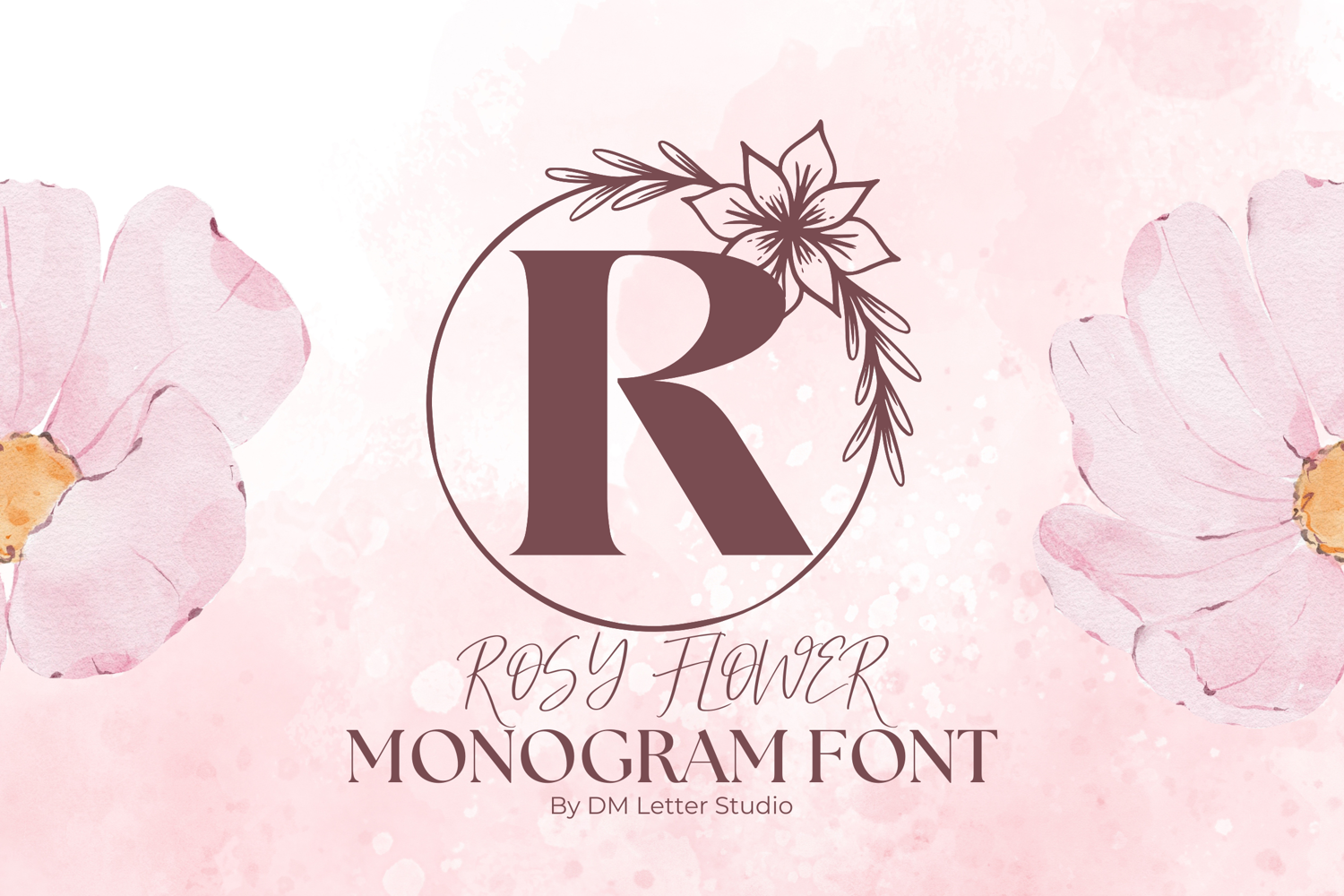
Rosy Flower Monogram - Elegant Floral Monogram Web Font
Rosy Flower Monogram – Elegant Floral Monogram Font
Rosy Flower Monogram is a beautifully ornate monogram font featuring delicate rose-inspired floral details. Designed with elegance and romance in mind, this decorative typeface is perfect for wedding invitations, feminine branding, and spring-themed designs. Its soft botanical elements bring a timeless charm to any creation.
• Elegant Rose Motif Design: Every letter is intricately decorated with graceful rose petal and leaf details.
• Ideal for Romantic & Feminine Projects: Great for weddings, logos, boutique packaging, and floral branding.
• Hand-Drawn Aesthetic: Combines organic elegance with refined lines.
• Complete Character Set: Includes uppercase, lowercase, numbers, punctuation, and multilingual support.